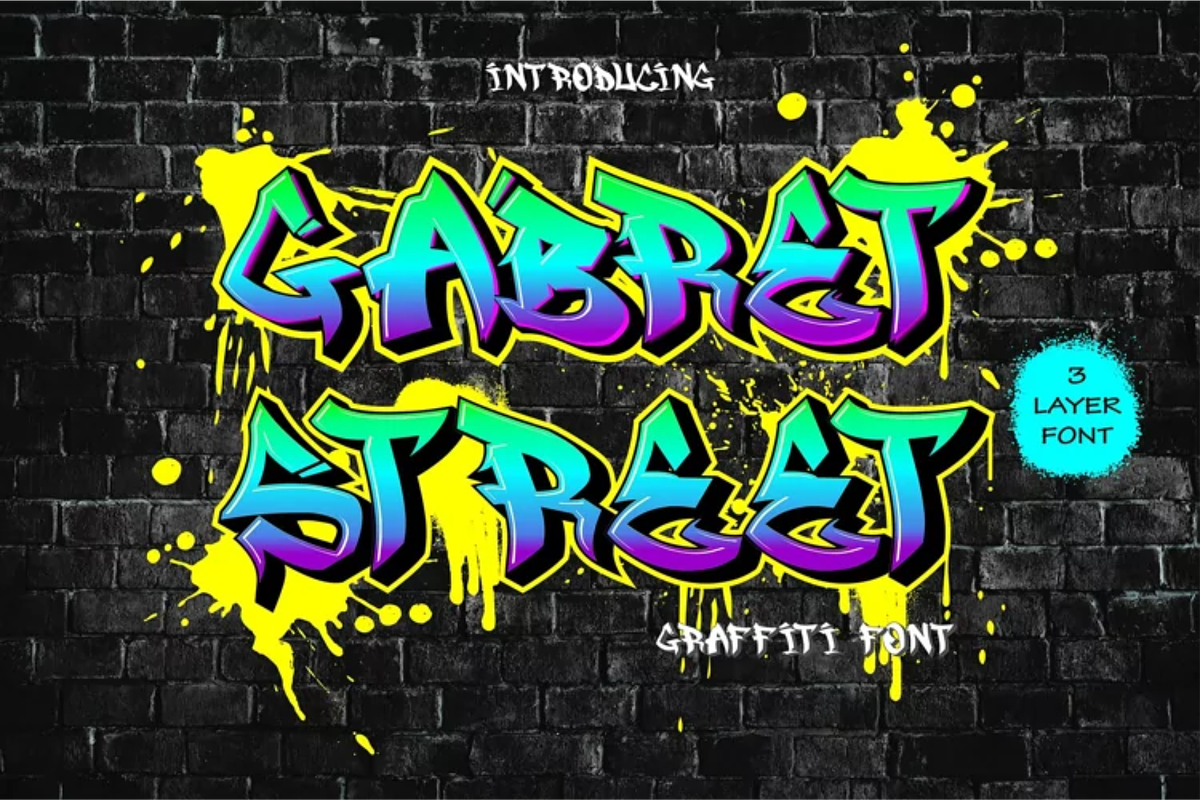
Gabret Street Font is perfect for urban branding projects, street art designs, graffiti-inspired graphics, hip-hop album covers, fashion brand logos, skateboard graphics, poster design, music event promotions, youth-oriented advertising, social media campaigns, apparel design, and contemporary art projects.
Gabret Street Font is exciting because it captures the raw energy and authentic spirit of street culture while maintaining exceptional readability and professional design standards. This dynamic typeface features bold character forms with edgy details that command attention and create powerful visual impact. The font's unique personality bridges the gap between underground aesthetics and mainstream design applications, making it versatile for various creative projects.
Gabret Street Font includes comprehensive font families: Regular Street Style, Bold Impact Version, Light Urban Touch, Condensed Format, Extended Width, Italic Variations, Distressed Texture Effects, Clean Modern Alternative, Shadow Elements, and Special Character Sets, providing extensive creative flexibility for designers.
This powerful typography solution transforms ordinary text into compelling visual statements through its distinctive urban-inspired design language and contemporary edge. Gabret Street Font Free Download offers designers access to premium street-style typography that instantly adds authenticity and attitude to any project. The font's carefully balanced proportions ensure excellent legibility across all media while preserving its distinctive character and visual punch.
Creative professionals working in music, fashion, and youth culture industries rely on Gabret Street Font for its ability to communicate authenticity and connect with target audiences on an emotional level. The typeface's robust construction performs exceptionally well in both digital and print applications, maintaining its impact whether used in large format displays or smaller text applications. Its extensive character support includes multilingual capabilities and special symbols designed to match the font's distinctive aesthetic.
The design philosophy behind Gabret Street Font emphasizes genuine street culture inspiration while ensuring professional quality and versatility. This careful balance creates a font that feels authentically urban yet functions seamlessly in commercial design contexts. The typeface's natural rhythm and confident stance make it ideal for brands seeking to establish strong, memorable identities.